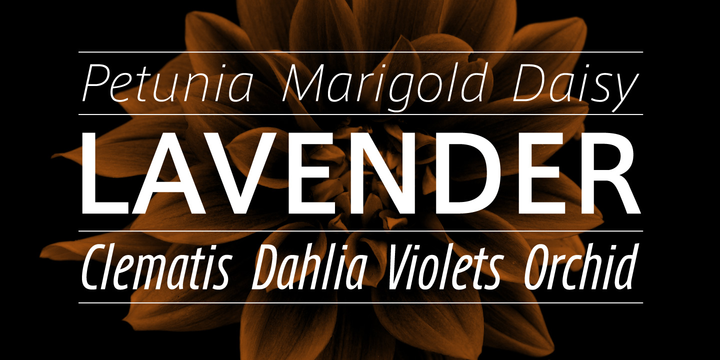
With its bilingual content-accommodating design, AXIS Font has been adopted by numerous globally active corporations and now enjoys use in a wide variety of situations.
Moreover, thanks to our AXIS Latin Pro Family, the Latin characters appearing in our acclaimed Japanese typefaces exist independently; and as the Latin Pro character set has been expanded to accommodate the ever-changing needs of globalization, we now have compatibility with 56 languages.
AXIS Latin Pro is a professional-use, Latin alphabet-dedicated typeface that features newly designed italic and small caps fonts.
This Japanese-produced Latin character font affords exceptional possibilities for text expressivity, taking advantage of the rich variations made available by the Normal, Condensed and Compressed fonts and all 36 styles that make up this complete typeface family.